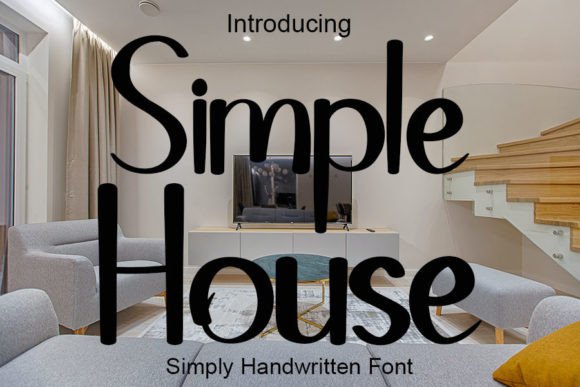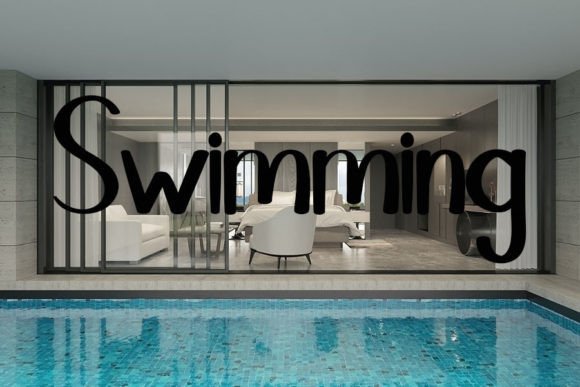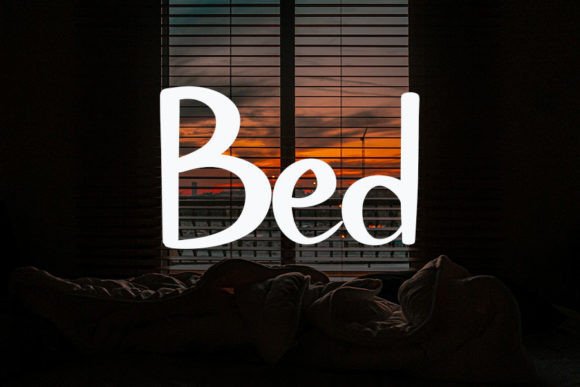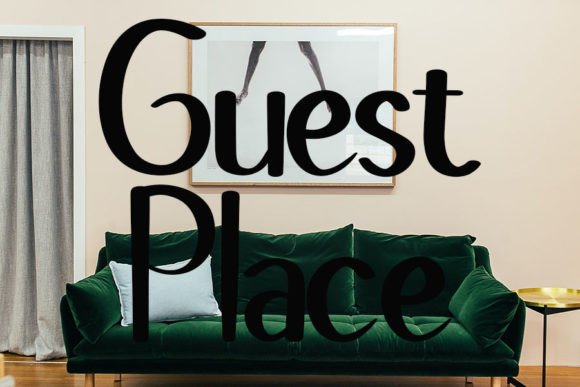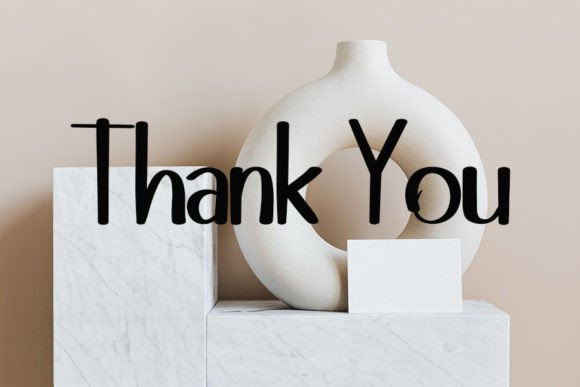
Simple House Font
About Simple House Font
“Simple House” is a neat and cute handwritten font characterized by a friendly touch, making it perfect for a variety of creative projects. With its distinct and timeless style, this font invites you to fall in love with its charm and use it to create spectacular designs.
The neat and cute qualities of “Simple House” make it versatile for different design applications. Whether you’re working on greeting cards, posters, social media graphics, or any other project, this font adds a friendly and approachable vibe that resonates with a wide audience.
Imagine “Simple House” gracing the pages of a children’s book, where its cute and friendly script brings characters to life. Picture it on a poster for a community event, creating a warm and inviting atmosphere. Envision this font used in social media graphics, adding a touch of friendliness to your online presence.
The distinct and timeless style of “Simple House” ensures that it can be applied to various design contexts without losing its appeal. Its handwritten charm brings a sense of authenticity and simplicity, making it a valuable asset for designers seeking a font that stands the test of time.
Whether you’re a graphic designer working on diverse projects or an individual looking to add a friendly touch to your creations, “Simple House” invites you to explore its possibilities. Let it be the key element that elevates your designs and infuses them with a touch of warmth and charm.